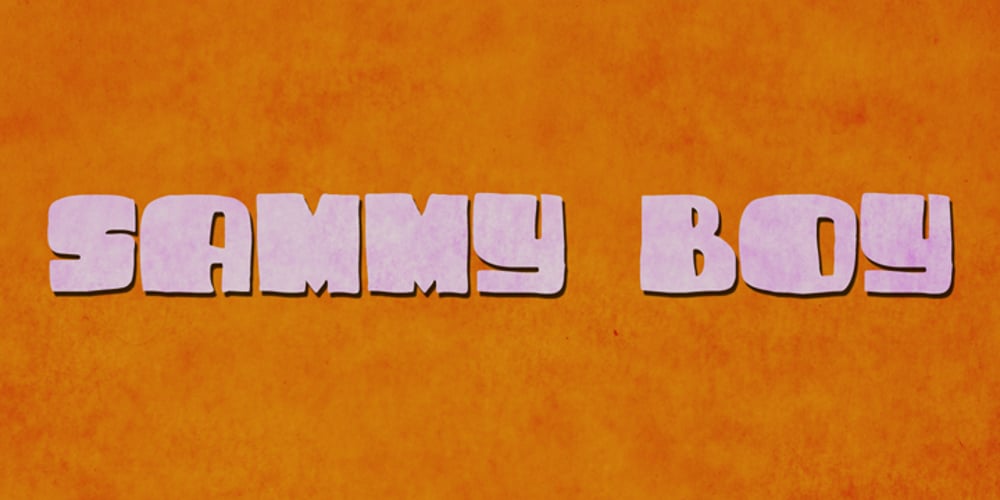
Sammy Boy Font Family was designed by David Kerkhoff and published by Hanoded. Sammy Boy contains 1 styles and family package options. Sammy Boy is sweet and cuddly when he wants to, but also loud and boisterous. Sammy Boy keeps you awake at night, but smiles at you in the morning. Sammy Boy can speak most languages. Sammy Boy is amazing.